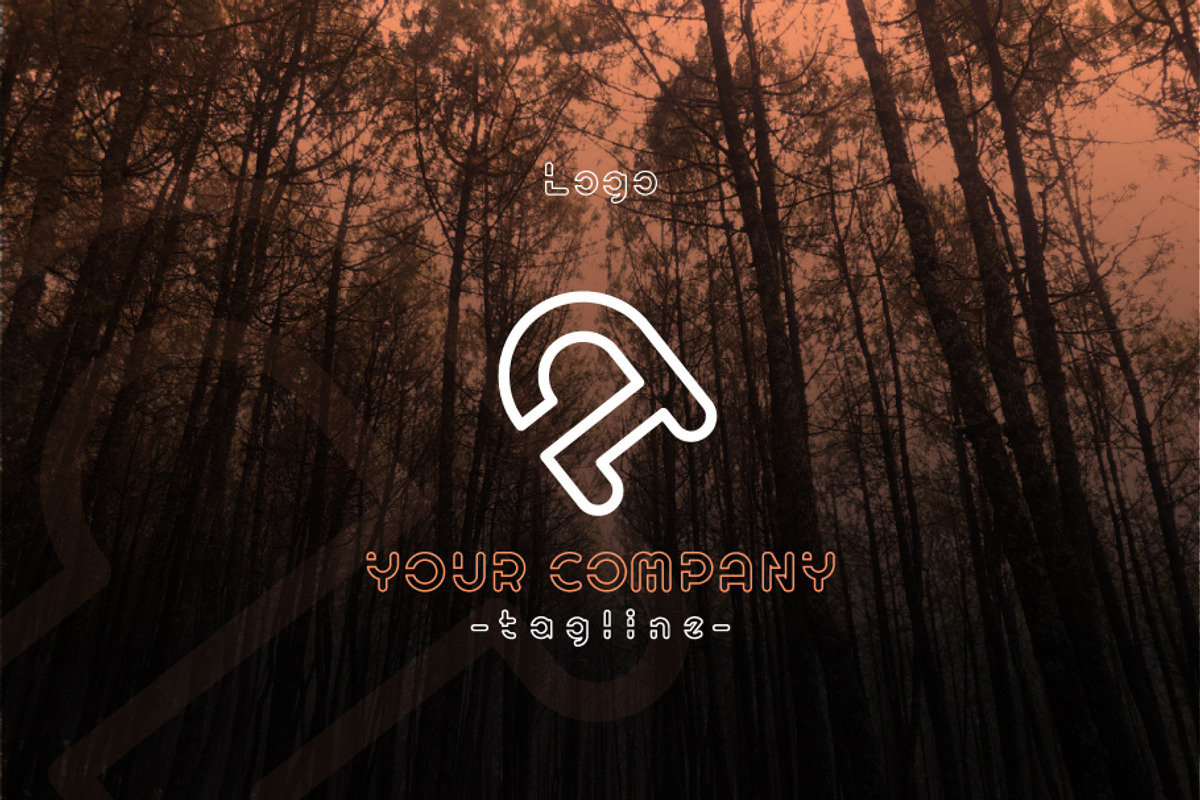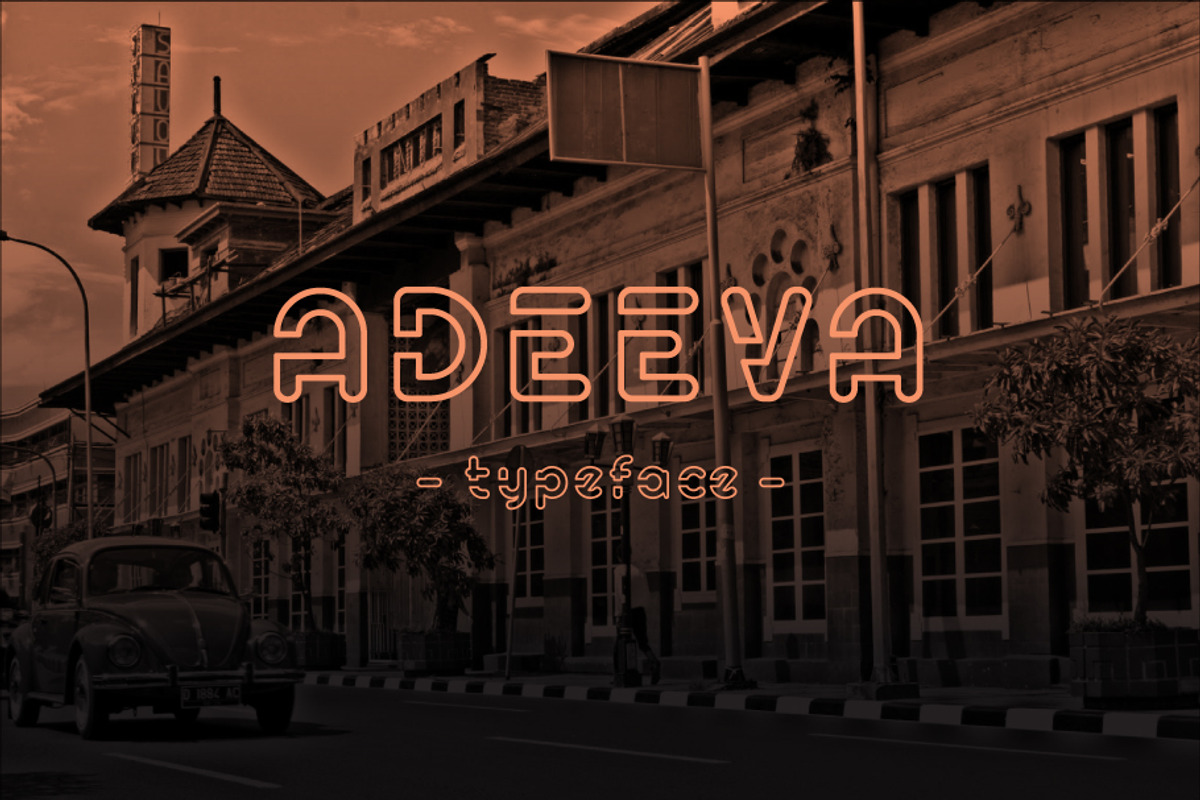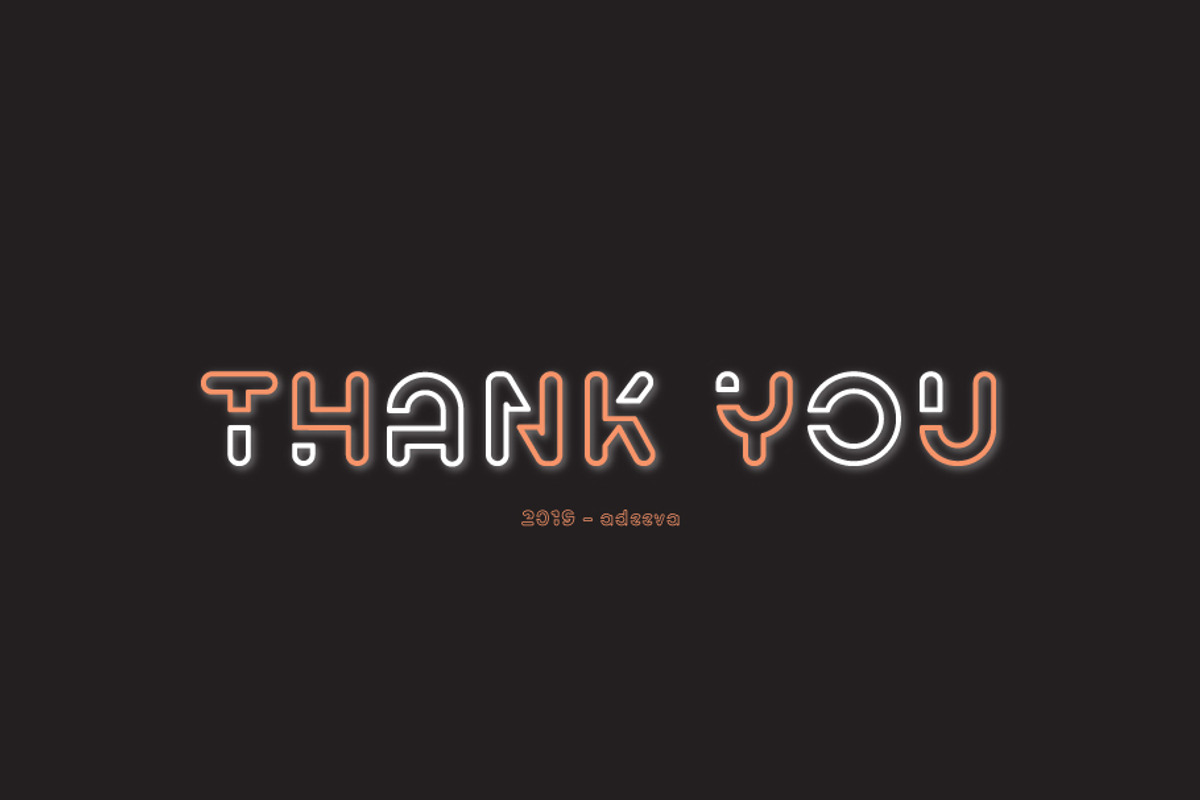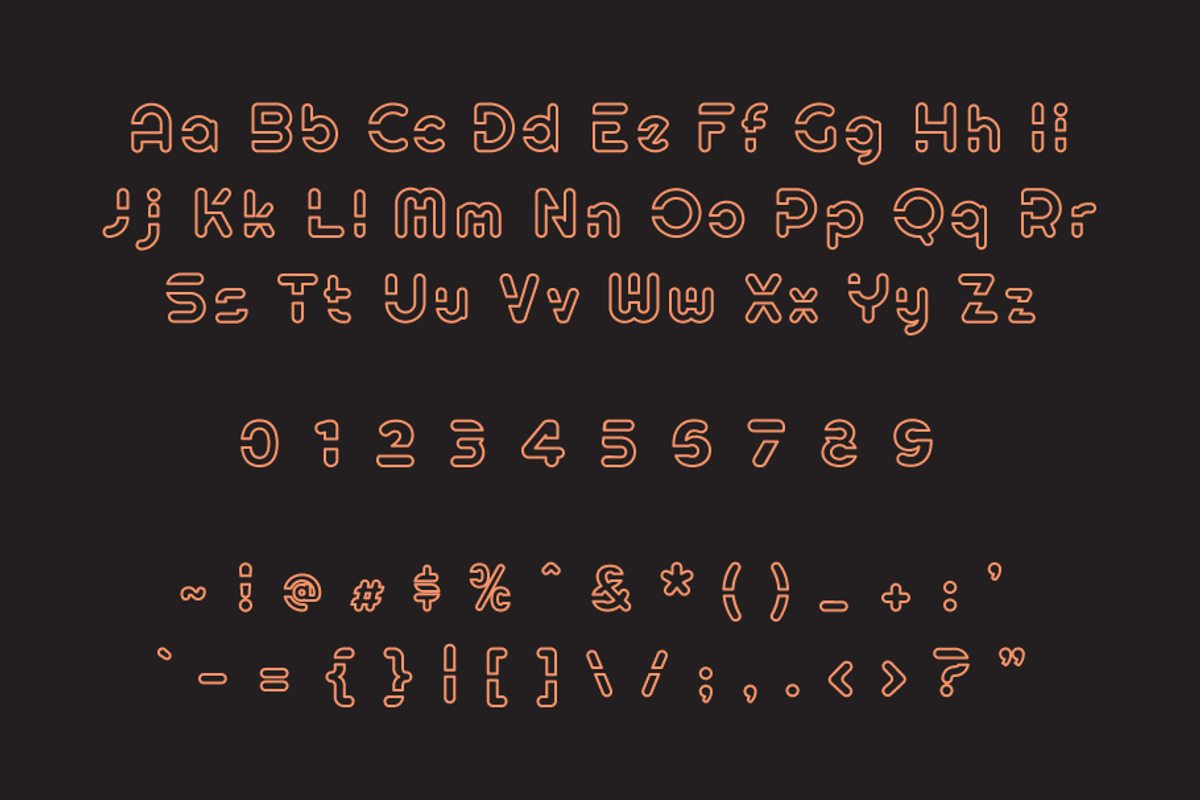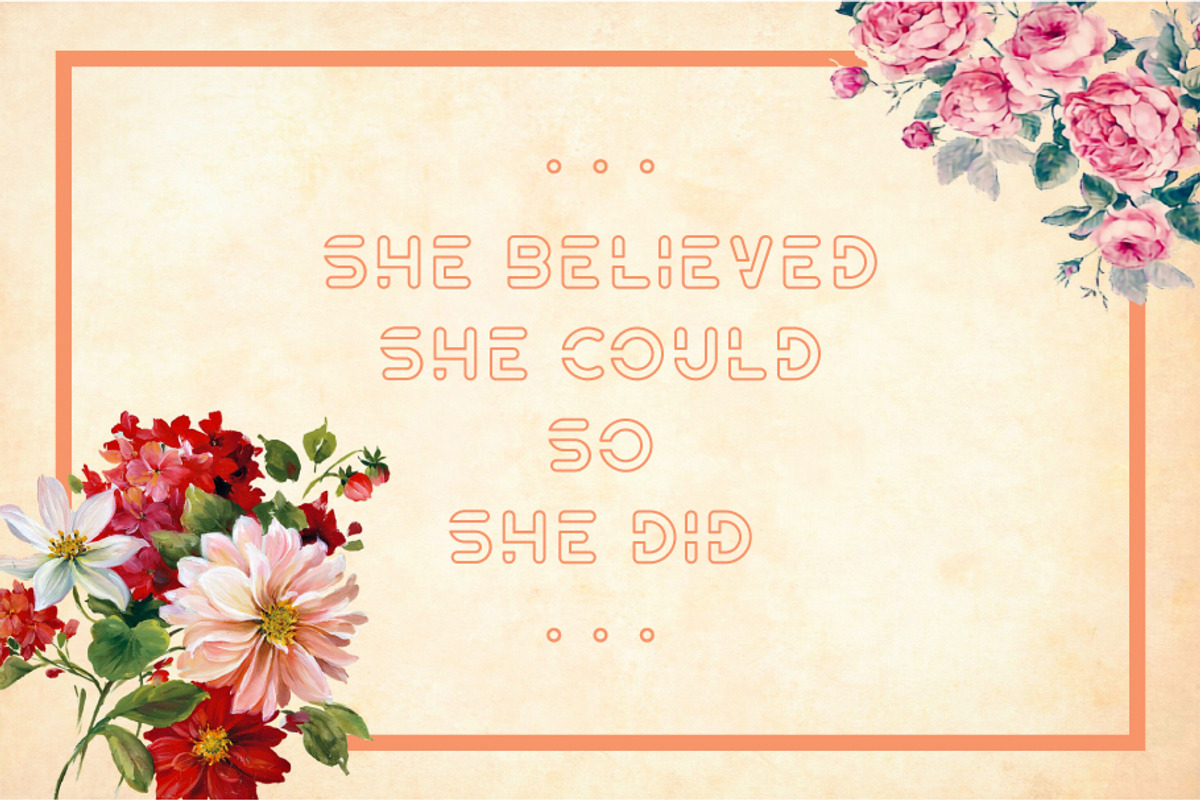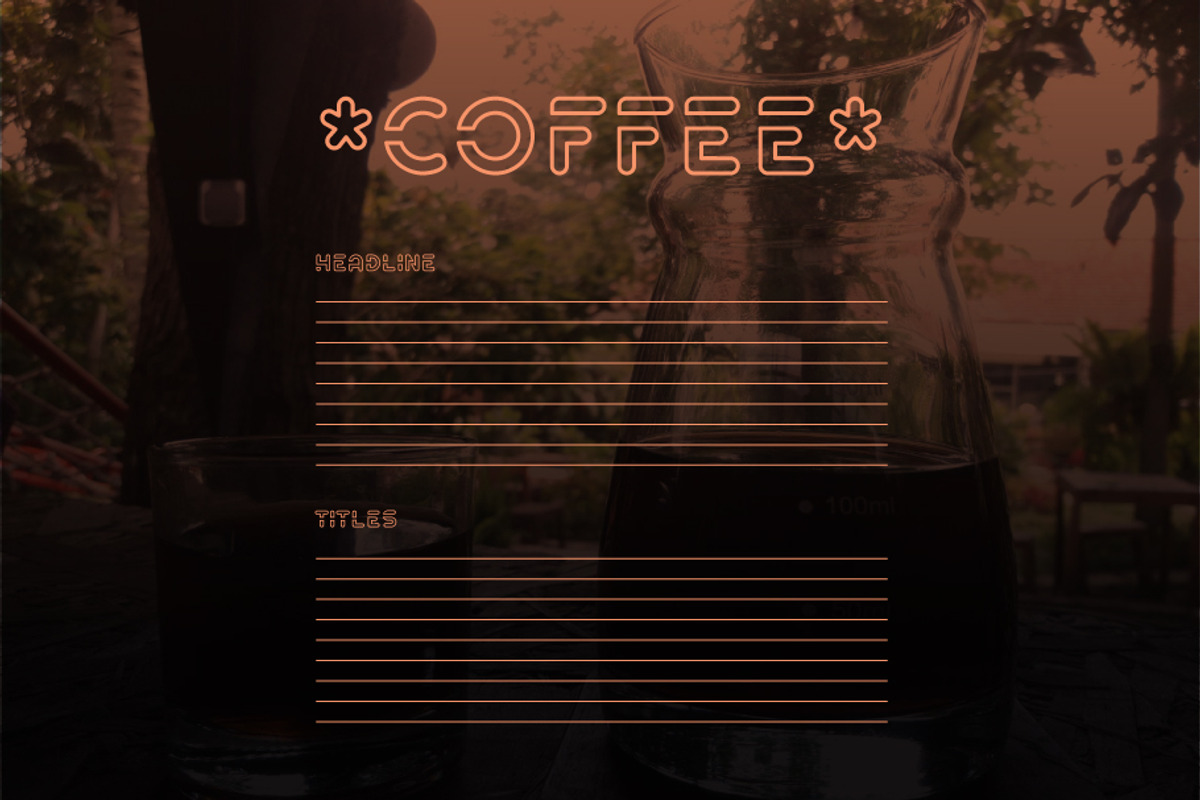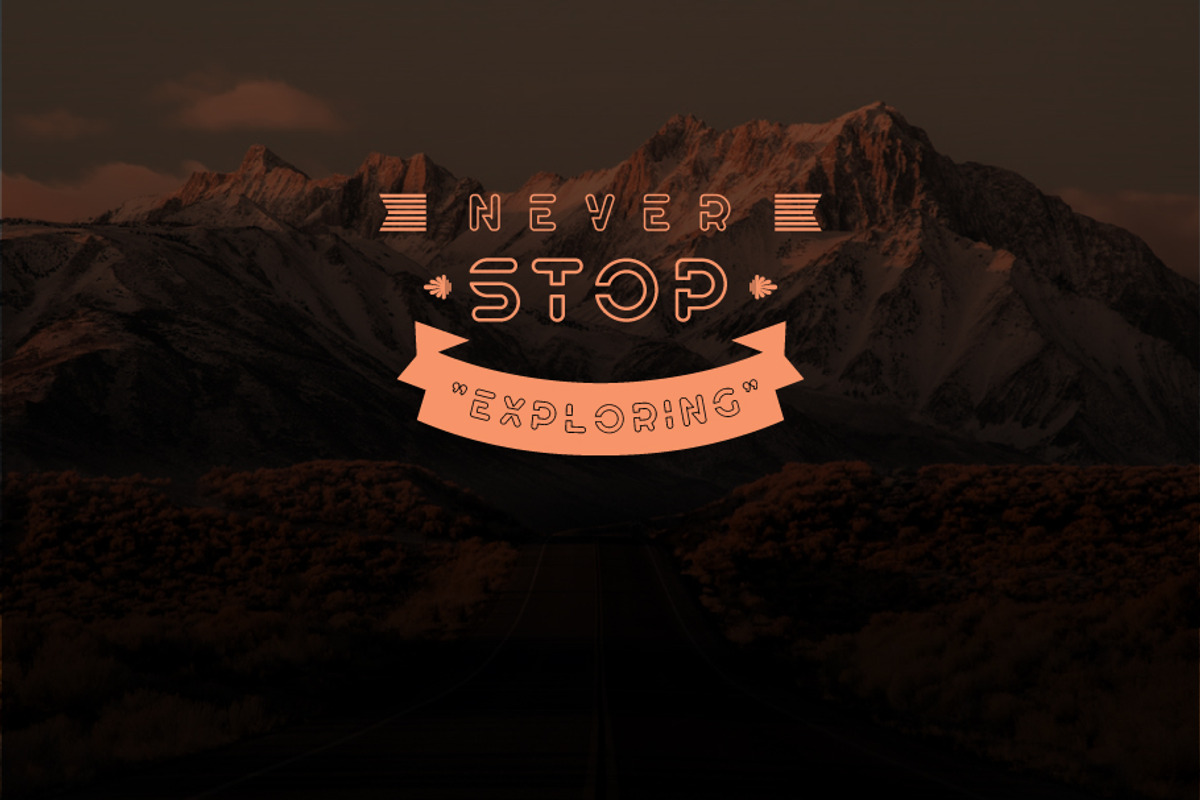
Adeeva Font
Adeeva is a unique typeface a means soft, polite, pleasant, modern, and adventurous edge.
Made for giving titles pleasant, Adeeva packs a full set of capitals, numbers and punctuation. Be it gigs, sports events, logo designs, wording, or script, Adeeva was made to bring impact.
Numerals & basic punctuations
Adeeva Font by Sign Vector fits naturally into Branding, posters, packaging, typography.